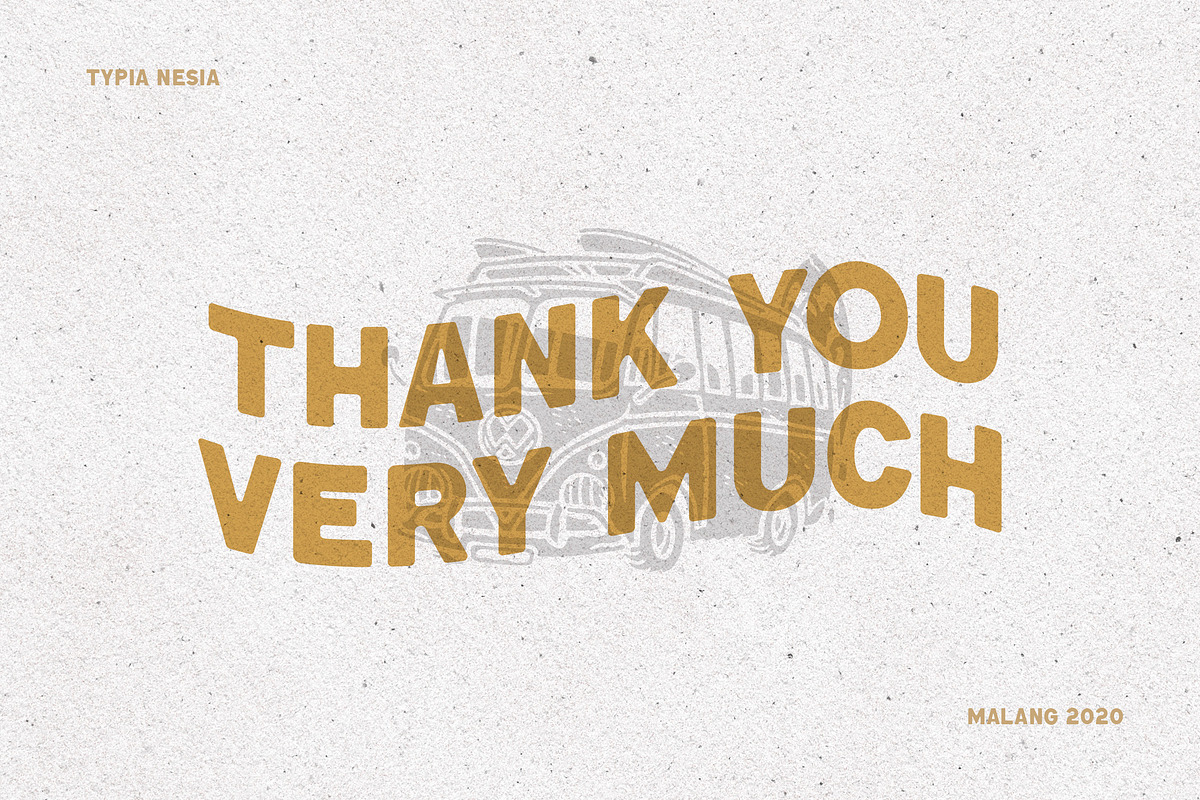
Great Dome Allcaps
Great Dome - Allcaps Vintage Rounded Display Sans Font
Great Dome - Allcaps Sans Serif font is perfect for your up coming projects. Such as logo branding, editorial design, stationery design, blog design, modern advertising design, card invitation, art quote, home decor, book/cover title, special events ( wedding, birthday, etc ), and any more.